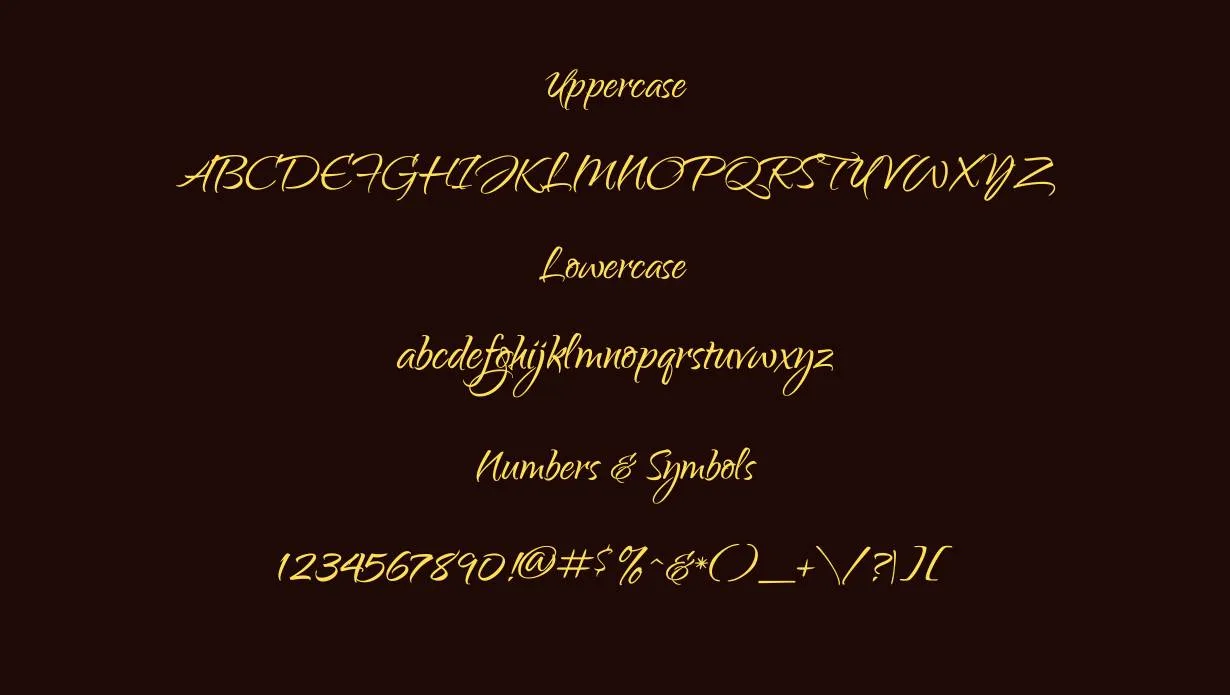
This strikes the right balance between simplicity and sophistication, making it a dependable choice for various design needs. Its clean and legible design ensures that your text remains easy to read, making it suitable for everyday use.
Whether you’re creating documents, presentations, or any content that requires a reliable and professional look, Daily Ibrat Font delivers a versatile and polished appearance, ensuring your message is communicated effectively.
| Name | Daily Ibrat Font |
| Designer | Creativetacos |